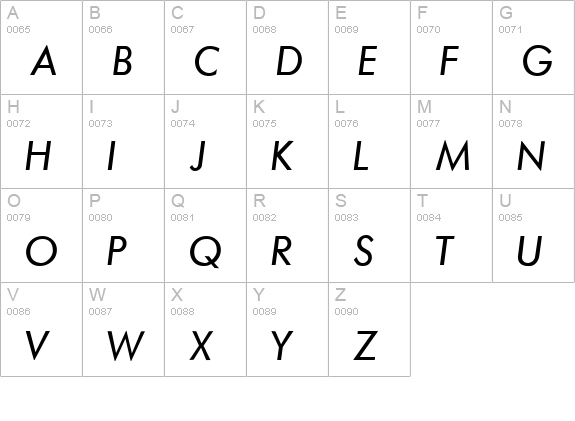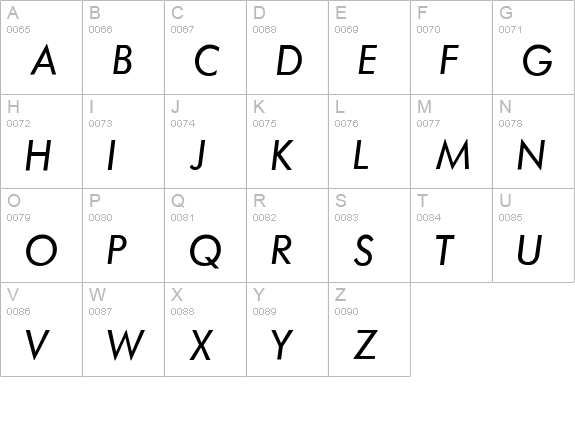
QTFuture Italic Font Details
QTFuture Italic is a distinctive, italic variant in the QTFuture typeface family \xE2\x80\x94 well suited to design and typography projects.
Introducing QTFuture Italic, a bold and captivating font that seamlessly merges the essence of modernity with a touch of elegance. Crafted with precision and attention to detail, this typeface exudes a sense of sophistication and forward-thinking design that is sure to elevate any project to new heights. With its slanted and italicized letterforms, QTFuture Italic adds a dynamic and contemporary flair to any text. Its unique combination of strong lines and graceful curves creates a visually striking aesthetic that demands attention. Whether used for headlines, logos, or body text, this font effortlessly captures the viewer's gaze and leaves a lasting impression. But what truly sets QTFuture Italic apart is its versatility and accessibility. Designed to be a versatile tool for designers, QTFuture Italic can be used across a wide range of projects, from branding to editorial design, packaging to web design. Its adaptability ensures that it can seamlessly integrate with various design styles, making it a valuable asset for any creative endeavor. And the best part? QTFuture Italic is freely available to download at FontsMarket.com. This allows designers and creatives alike to easily access and utilize this remarkable font without any barriers. Whether you're a professional designer or a passionate enthusiast, QTFuture Italic empowers you to bring your creative visions to life without any limitations. So, if you're looking to add a touch of modernity and sophistication to your next project, look no further than QTFuture Italic. Download it today at FontsMarket.com and unlock a world of creative possibilities. Embrace the bold, embrace the future, and let your designs speak volumes with QTFuture Italic.